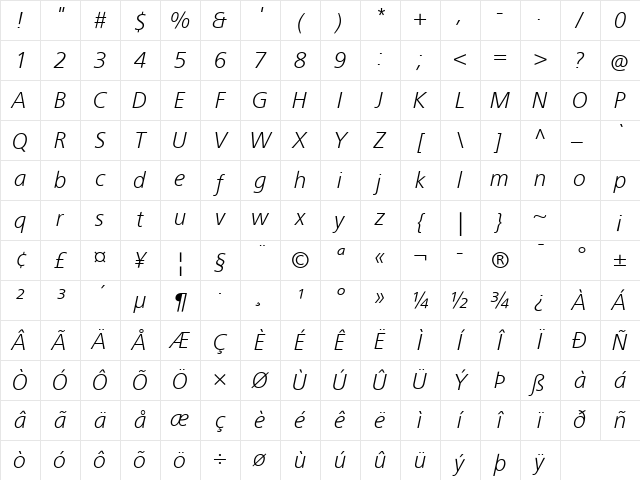
FrutigerNextLT Light Italic Free Font
FrutigerNextLT Light Italic
Design Context for FrutigerNextLT
FrutigerNextLT is a composed and adaptable typeface that performs quietly and consistently across a wide range of design contexts. The slanted form adds forward momentum and visual energy. Its slender proportions lend an understated elegance to any composition.